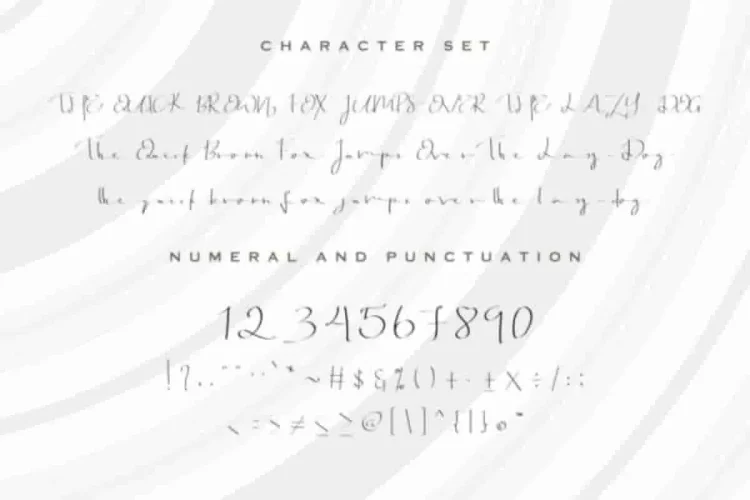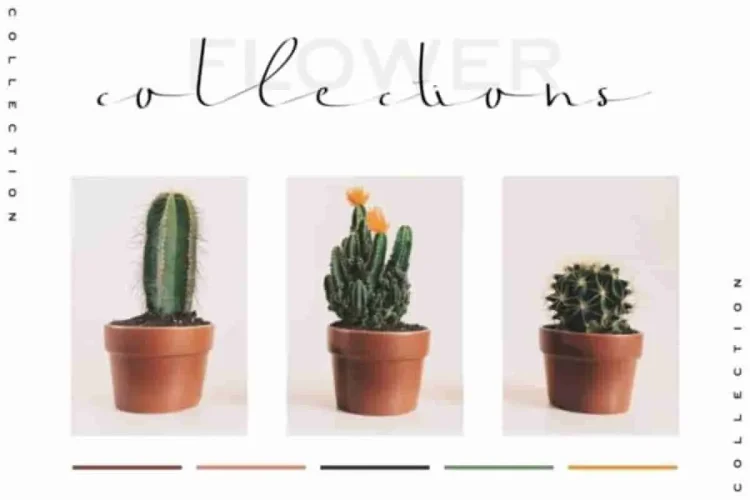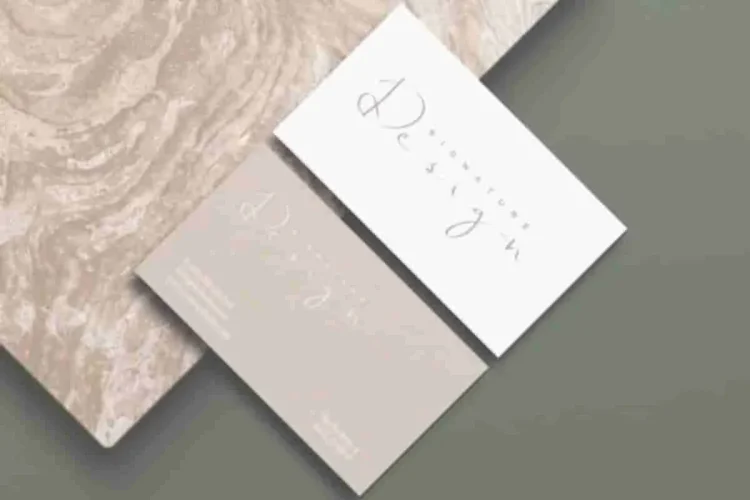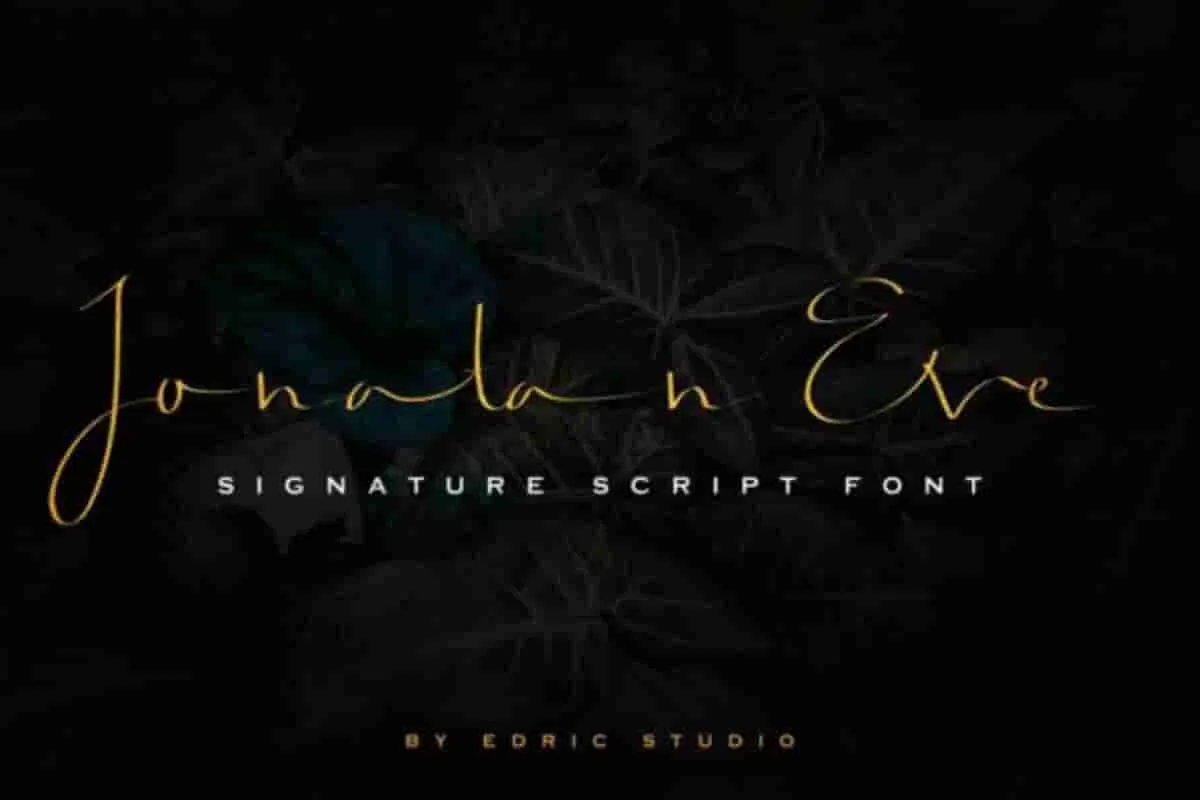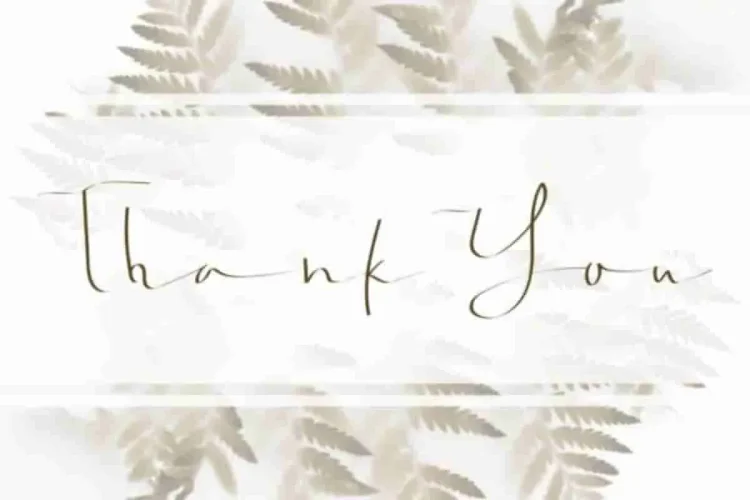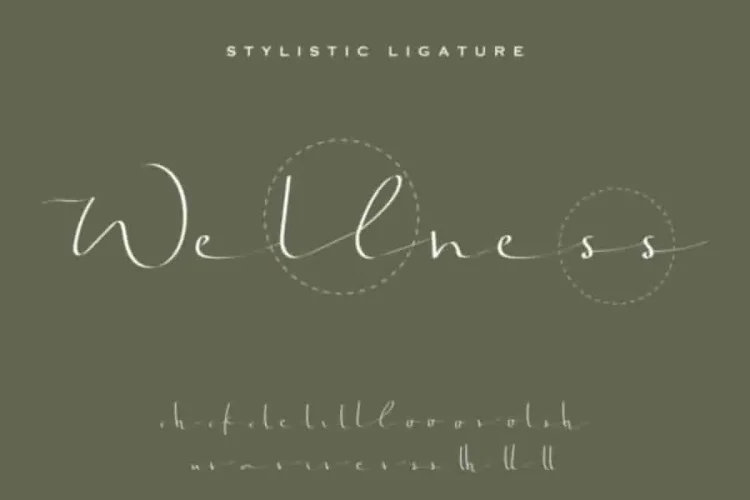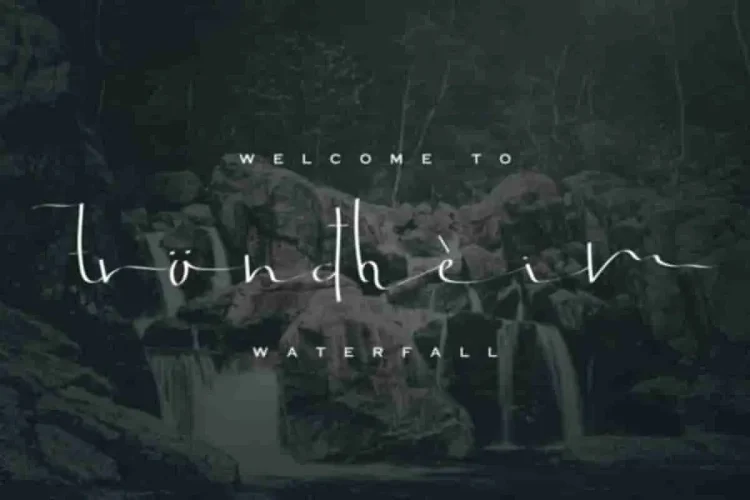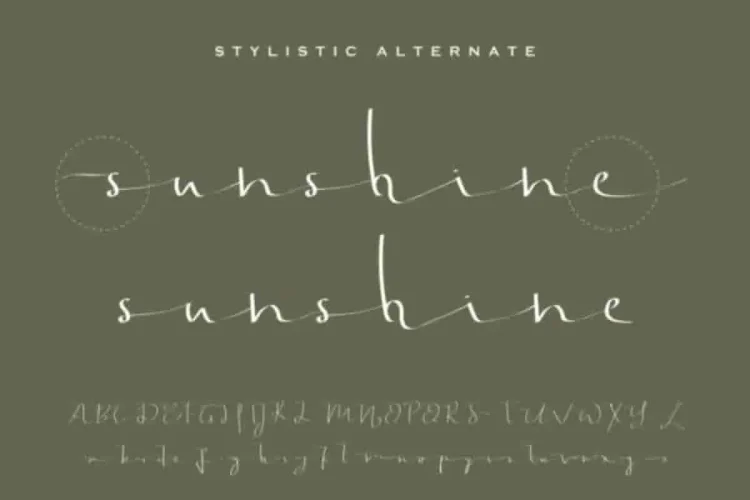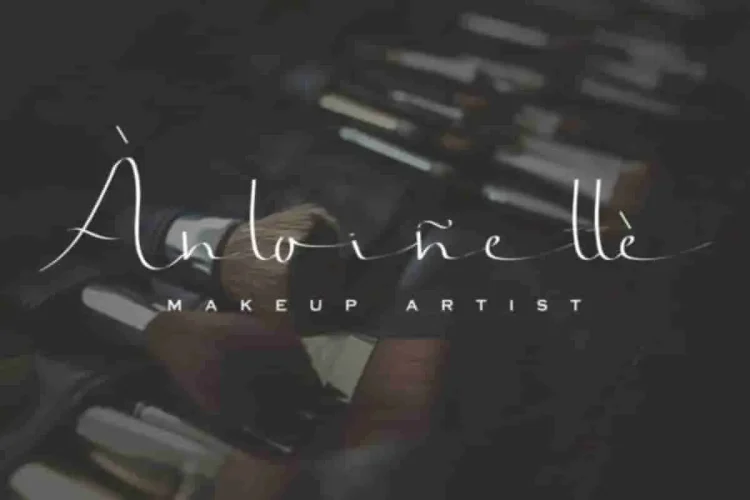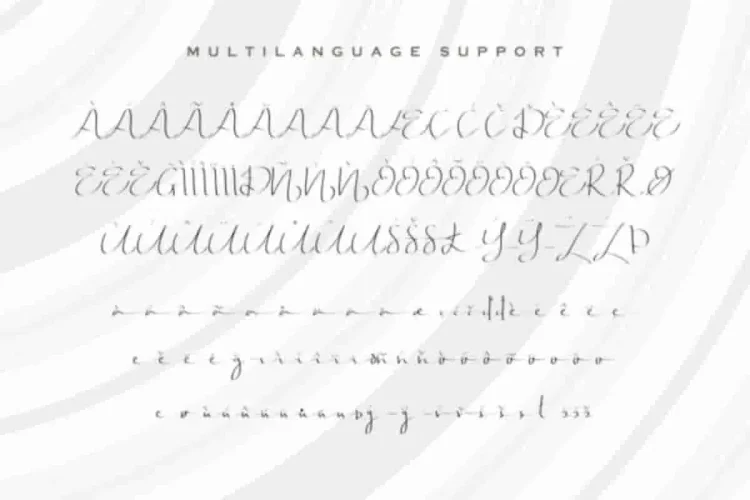
Jonatan Eve Signature Script Font
Let me introduce to our newest font : Jonatan Eve !
Jonatan Eve Font has many alternate glyphs so you can explore further more. This font will suits many projects categories : Logo type, flyer, stationery, business card, signage, flyer, brochure etc.  With your creativity, there’s no limit using with this font.
The Jonatan Eve Font is also support many international languages.